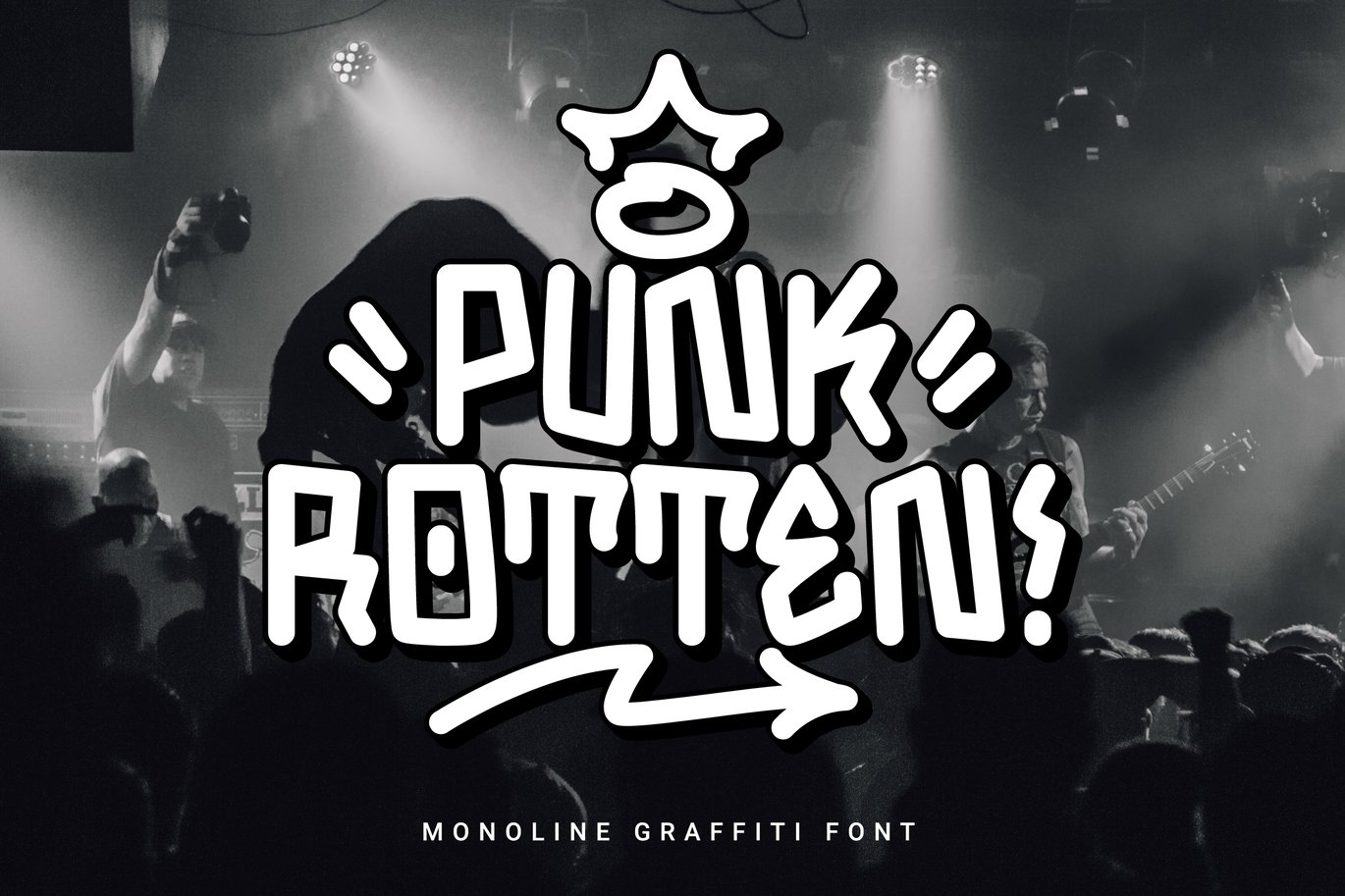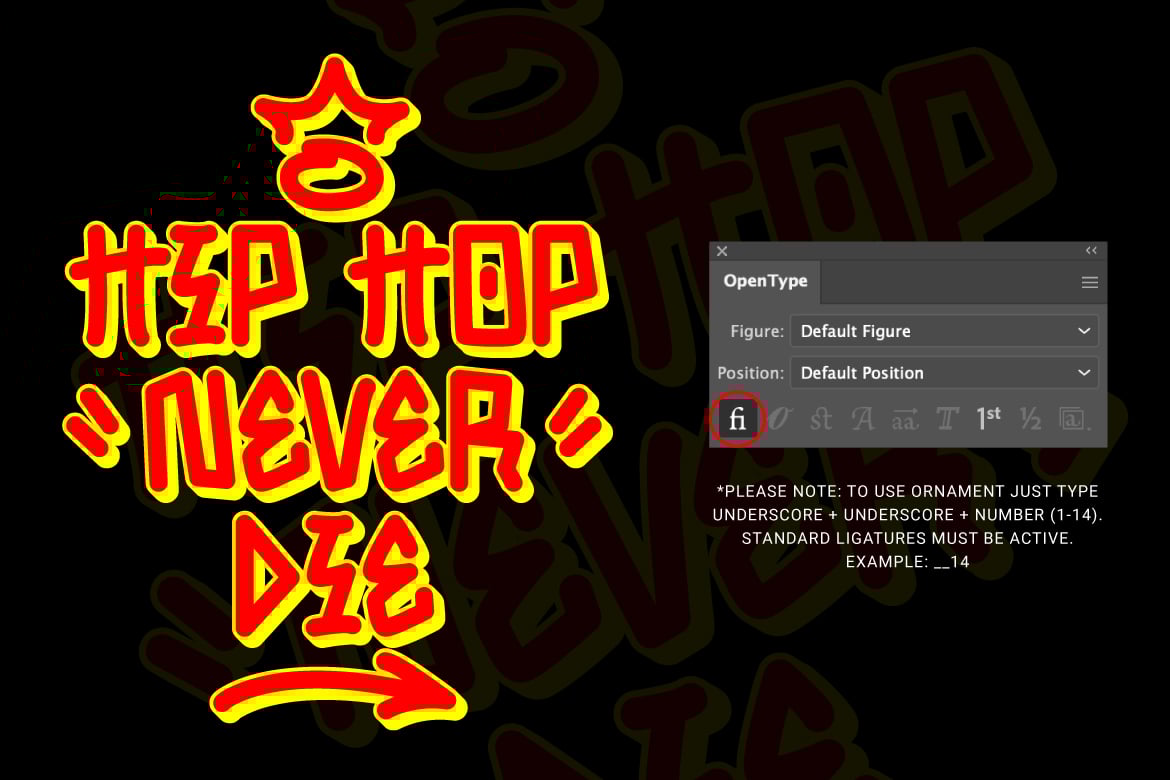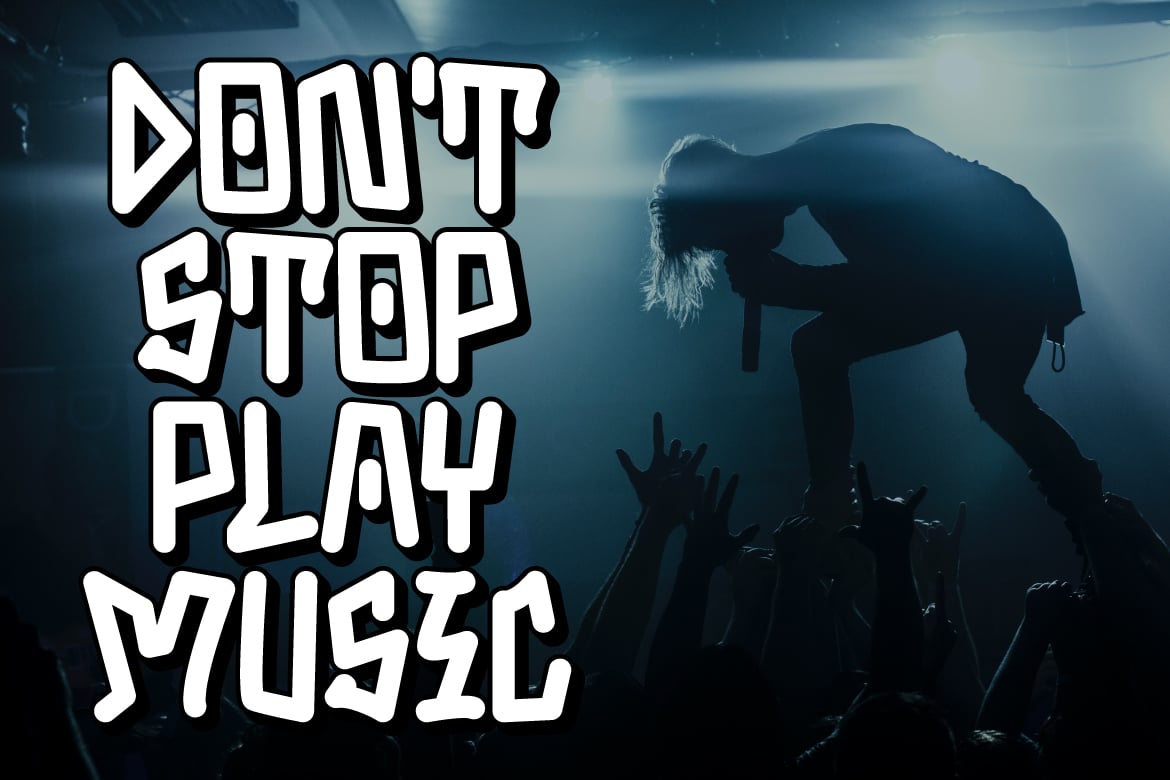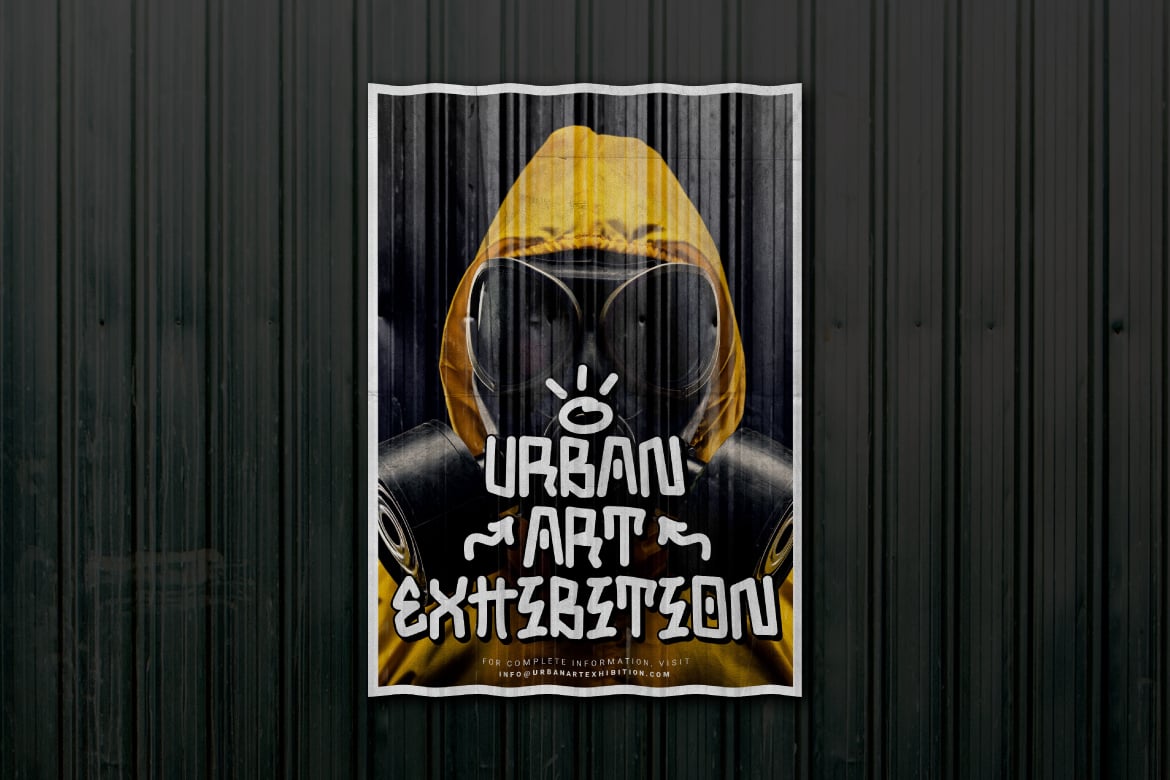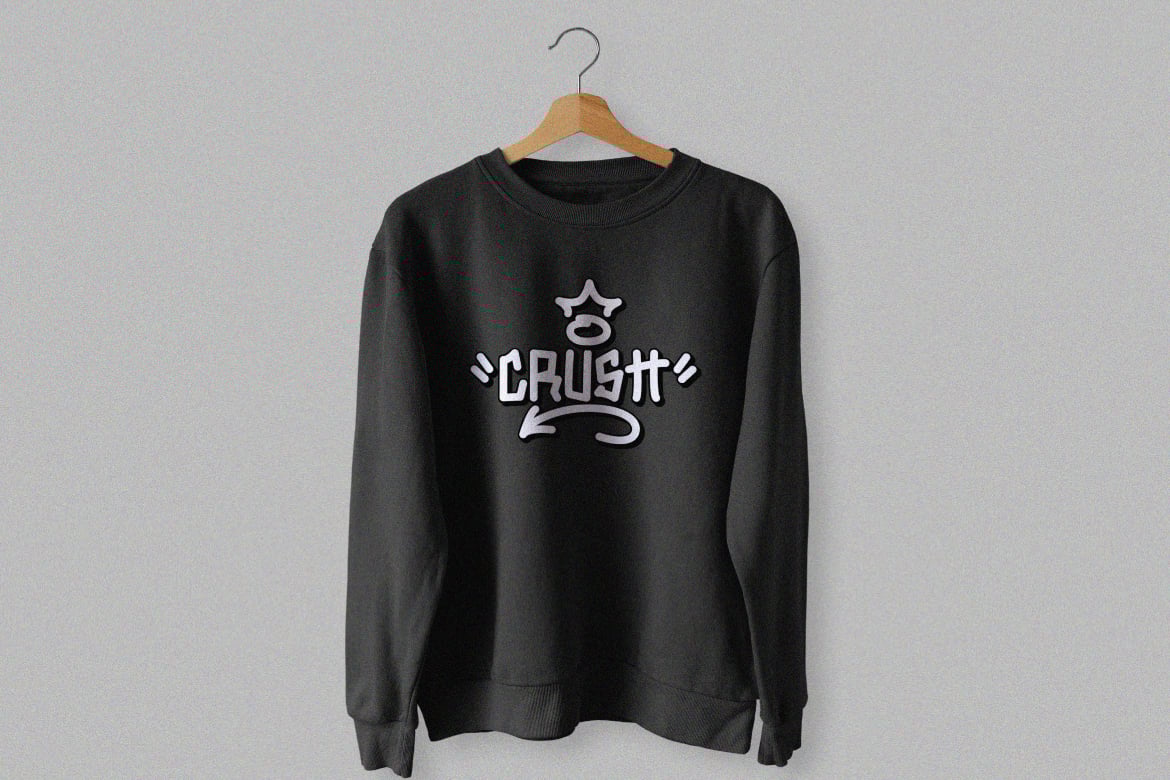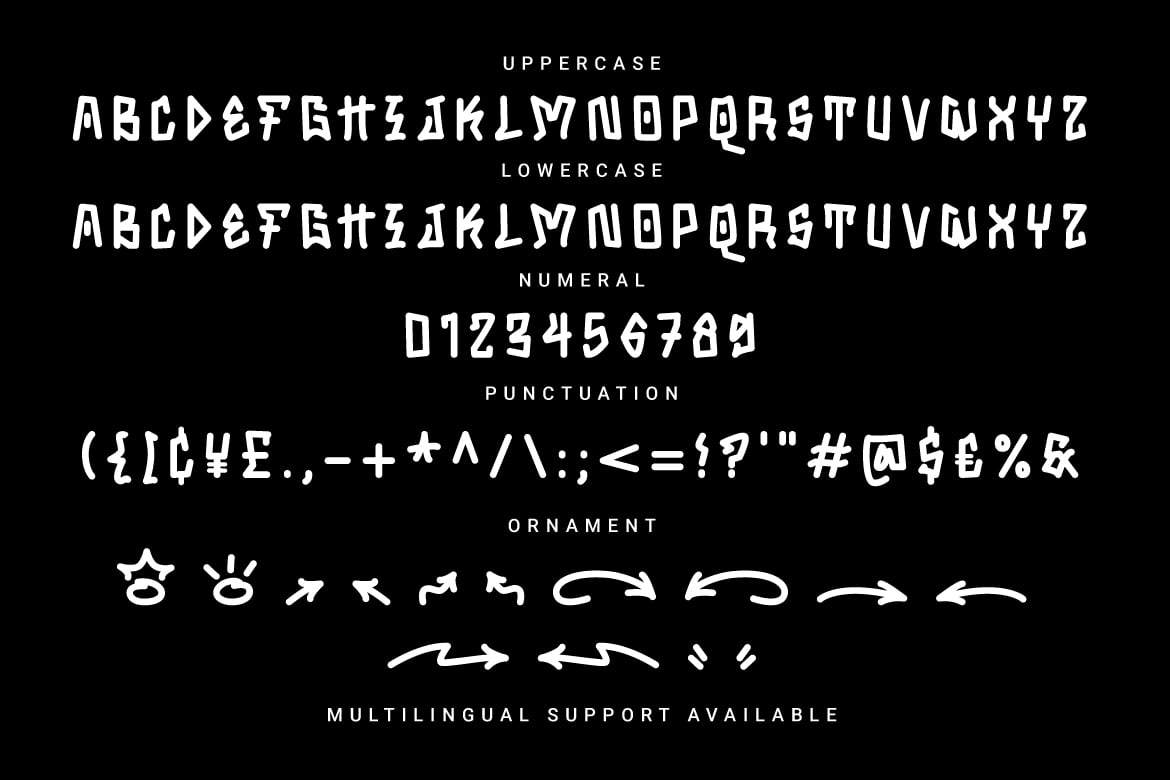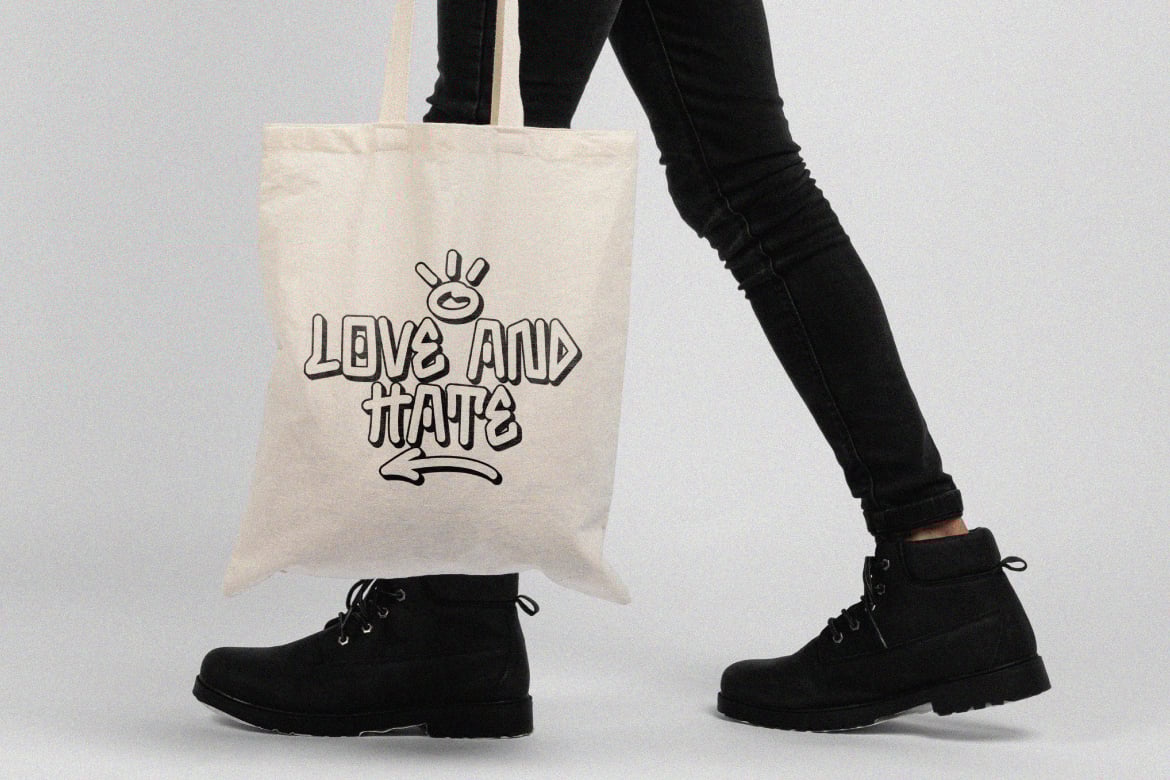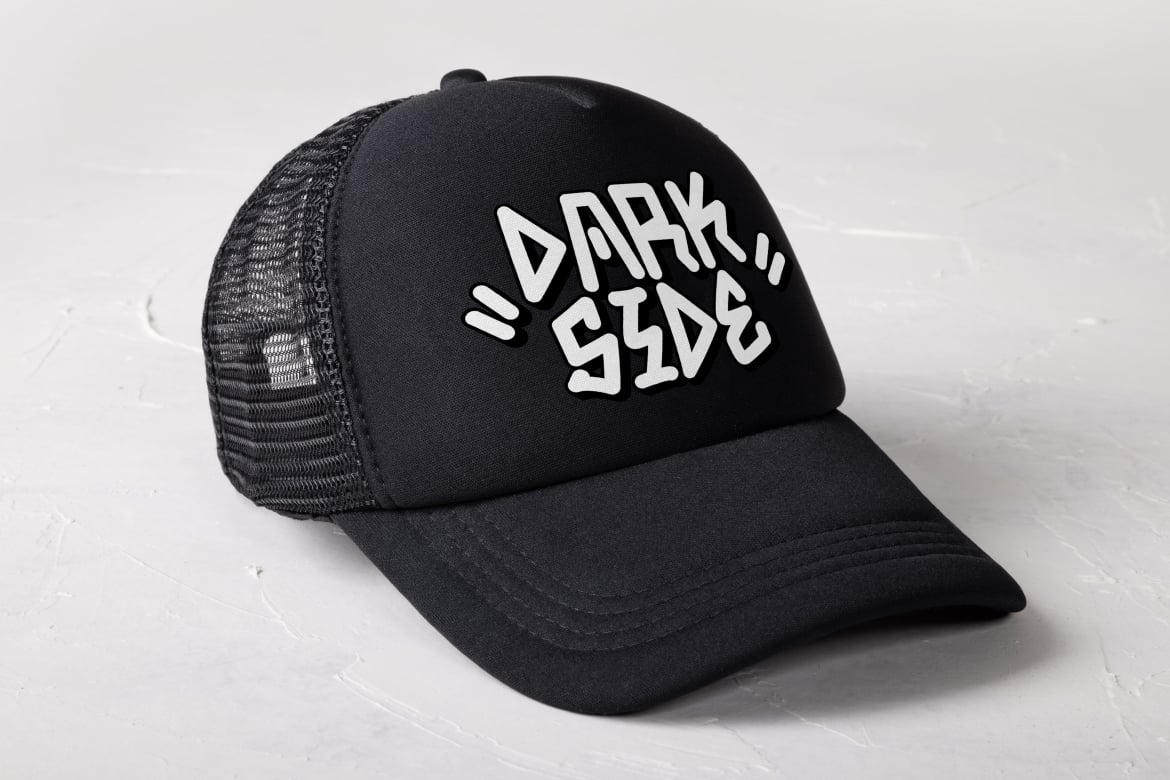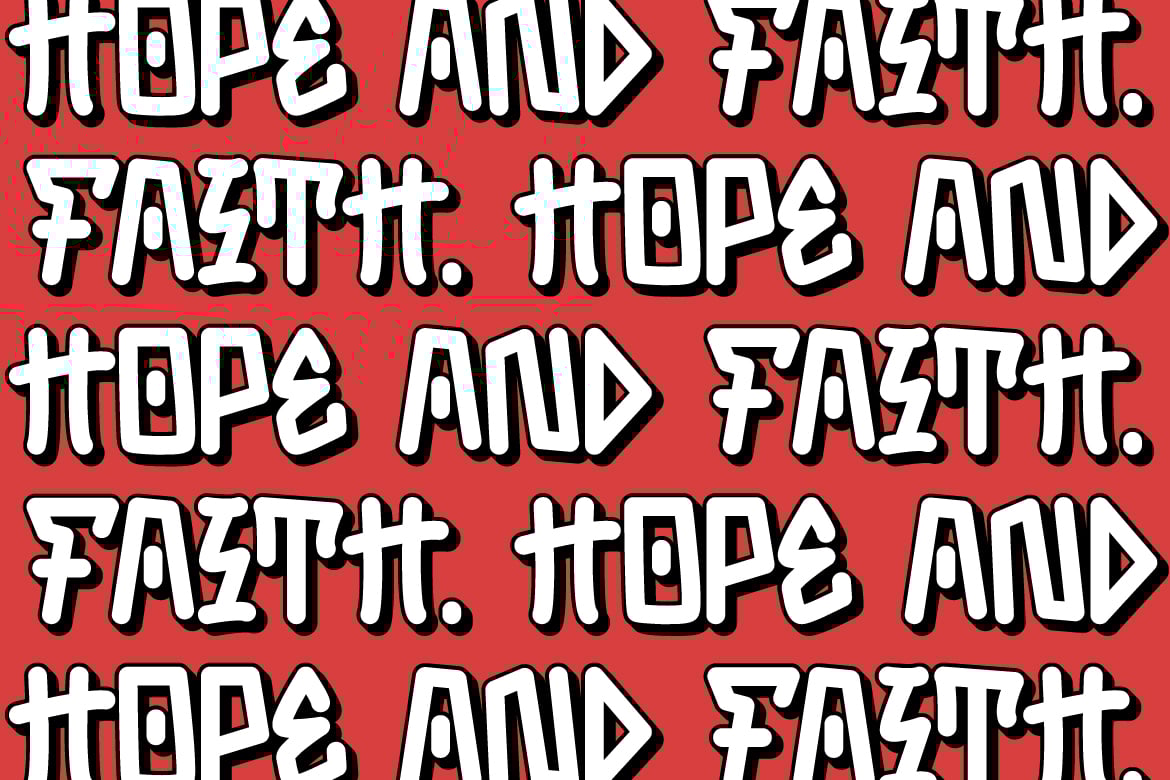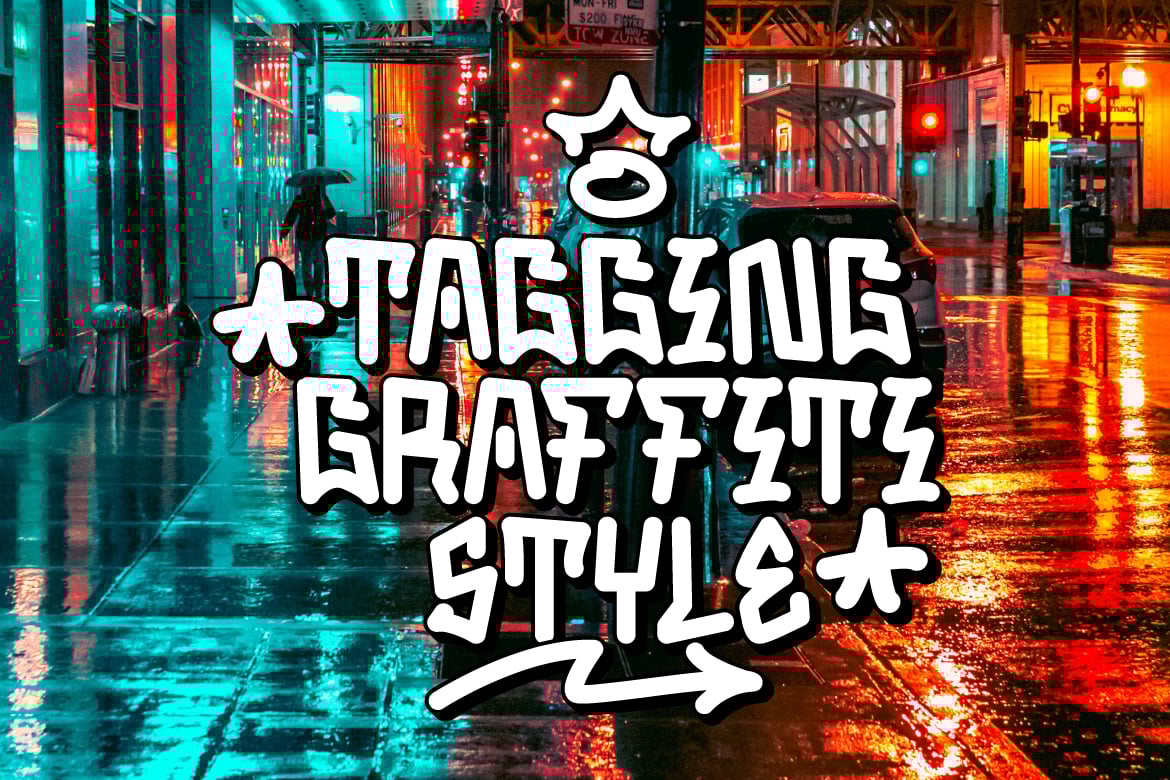
Punk Rotten – Monoline Graffiti Font
Street art style is endless. Here comes a font with a cool and fun graffiti tagging style. Coupled with ornaments that make it more attractive. You can access the ornament by typing underscore + number (1-14). Example: __14. The program must support the opentype feature or contain a glyph panel. Suitable for merchandise designs, posters, stickers or album covers.
- Features: Uppercase, Lowercase, Numeral, Punctuation, Multilingual & Ornament.